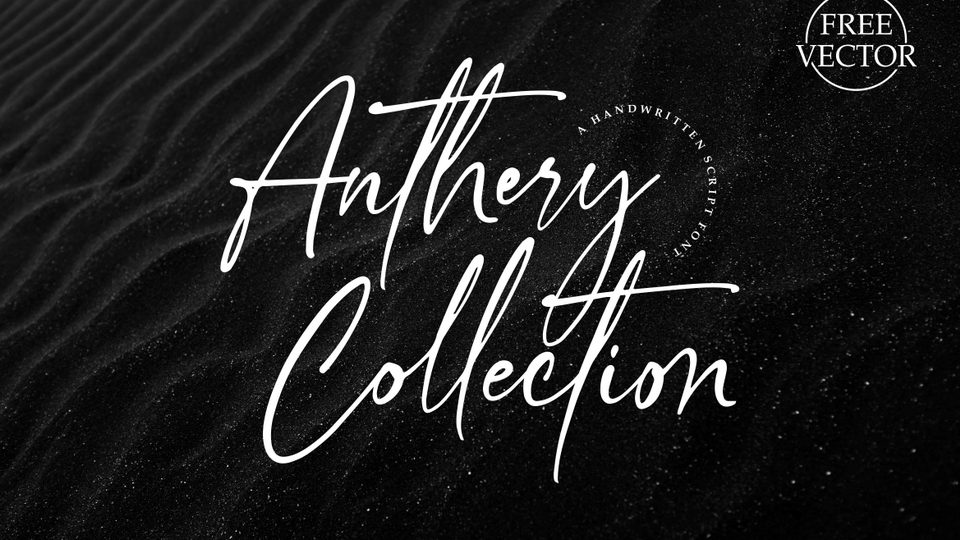
Feb 10, 2025Script & HandwrittenAnthery Collection Font Anthery Collection is a stylish signature script font. Anthery Collection font look natural, classic and elegant, very suitable to make a branding, magazine, fashion, quotes, logo, packaging, and other. Font DetailsDesigned by: Nur KholisWebsiteLicense: Free for personal use Download Anthery Collection FontFile size: 47.58 KBCreated: February 16, 2025Updated: February 16, 2025 Download Explore similar fonts Aesthetic Shine Font Autograph Westhelin Font Biancha Font Jareth Signature Font Cimlajin Font Chastel Reid Font # Casual# Cursive# Fashion# Handwriting# Ink# Signature More fonts by Nur KholisLove Betteria FontViolette ScriptNext Southerland FontCutterlines Font